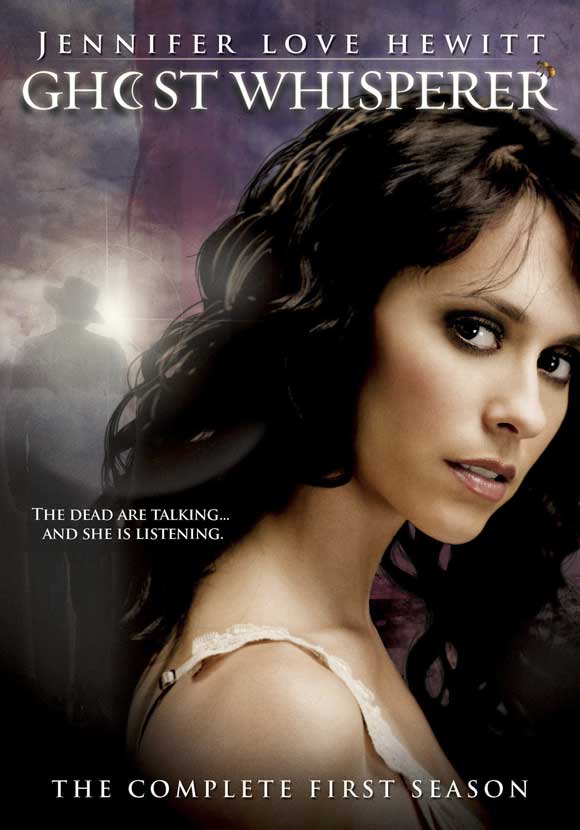
Ghost Whisperer (TV Show) Font
DramaGhost Whisperer is a supernatural television drama series that aired from 2005 to 2010. It follows the life of a young woman named Melinda Gordon, who has the ability to communicate with the spirits of the dead and help them resolve their unfinished business.
The title of the TV series "Ghost Whisperer" bears a striking resemblance to Requiem Text Small Caps font, which was created by Jonathan Hoefler in 1992 for Travel & Leisure magazine. Requiem is a Renaissance-inspired serif font based on a sixteenth-century writing manual illustration.